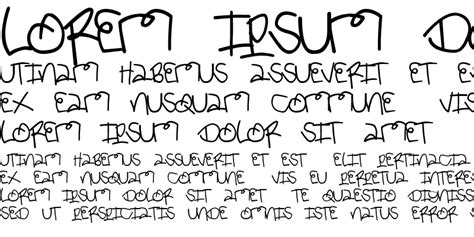
A freebie by thomas weigl, based on the handwriting on the cover of kendrick lamar’s good kid, m.a.a.d city. Download ttf free for windows font Web download free king kendrick regular font by | kingkendrick.ttf size 20.8kb. $ free for personal use. Web king kendrick in use.